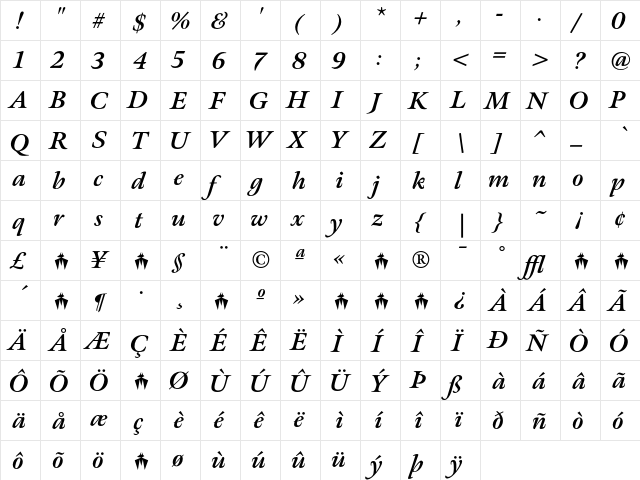
Meno BoldItalic
Design Context for Meno Typeface
Meno offers clean, dependable letterforms without strong stylistic allegiance, making it a practical choice for designers who need flexibility. Its italic angle brings a sense of urgency and motion to the letterforms. The heavy weight commands attention and anchors typographic hierarchies.
Pro Tip: Use Meno for emphasis, pull quotes, and subheadings where its slanted energy can add rhythm to the layout.